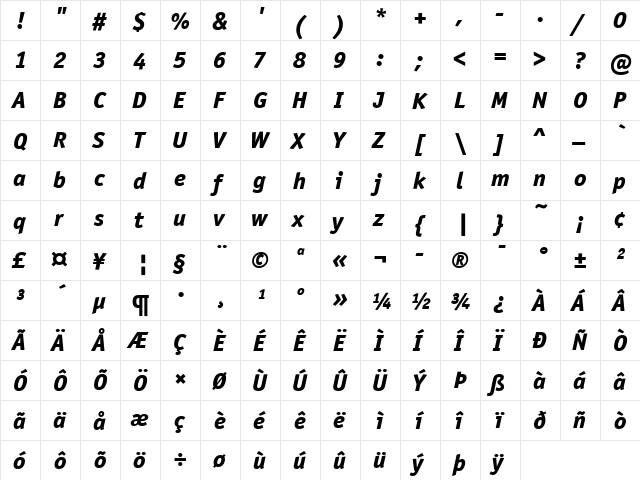
OfficinaSanITC ExtraBold Italic
| Foundry | \ International Typeface Corporation and by Erik Spiekermann, Ole Schaefer |
Design Context for OfficinaSanITC Typeface
OfficinaSanITC is a composed and adaptable typeface that performs quietly and consistently across a wide range of design contexts. The dynamic lean of this cut emphasises speed and emphasis in any layout. Its bold stroke weight gives it real presence on the page.